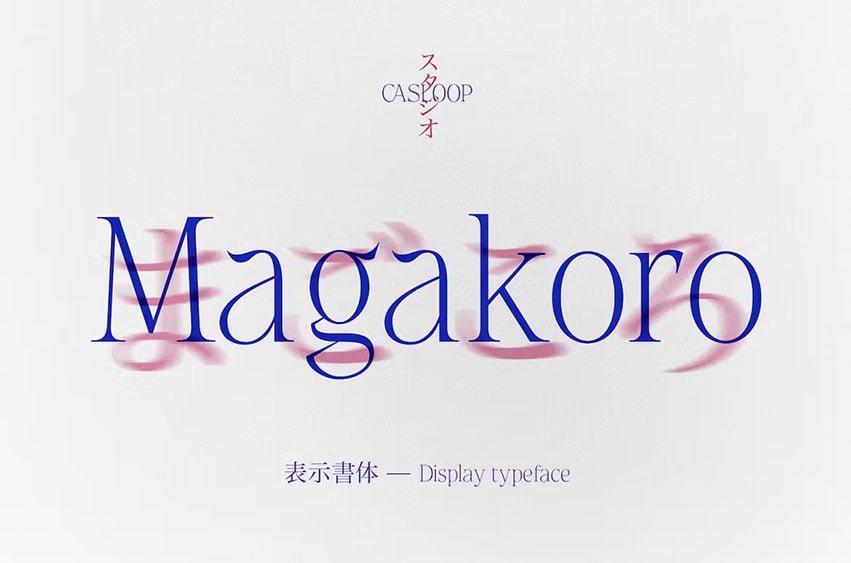
Cas Magakoro Font is the ultimate typeface for designers looking to add a touch of elegance and sharpness to their designs. With its dynamic and snappy letters, this font is perfect for headlines, display text, and branding. But that’s not all, Cas Magakoro comes packed with advanced OpenType features like ligatures, alternate characters.
Multi-language for western Latin characters and Latin for Asia, Oceania and Africa, in addition to Cas Magakoro functionality for more segmented purposes.